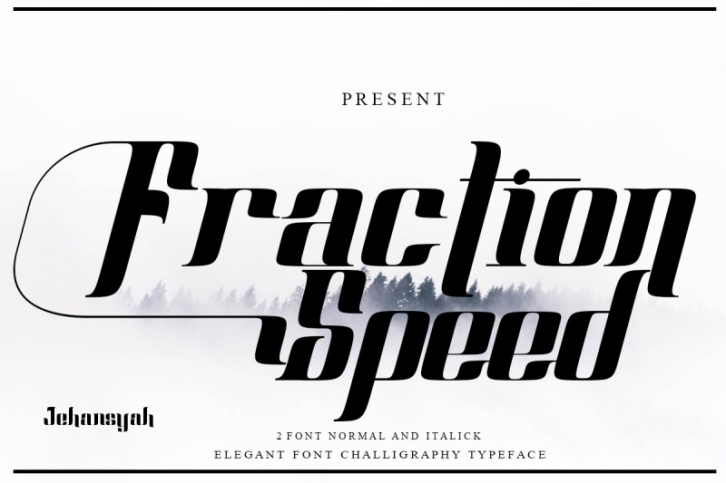
Fraction Speed challigraphy elegant font
You will be amazed by its professional appearance
This really supports all your projects, especially those who want to make titles with a special appearance